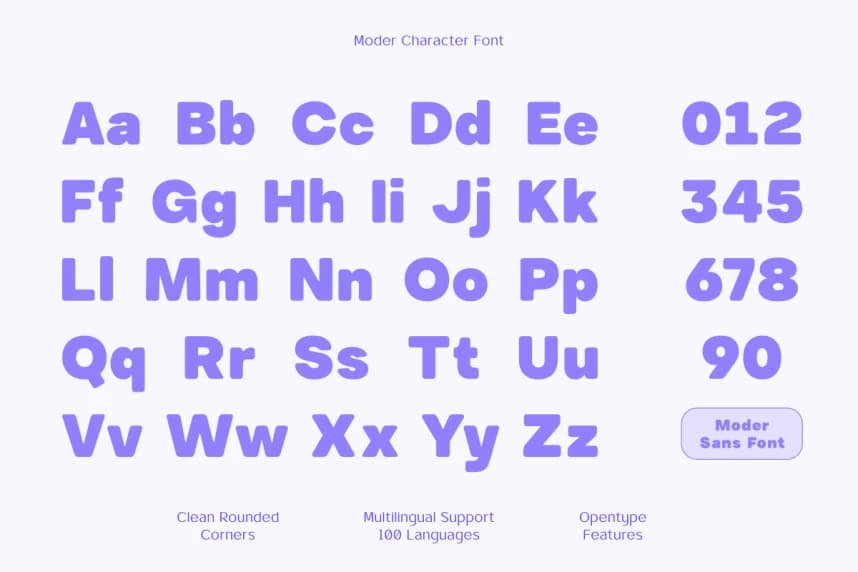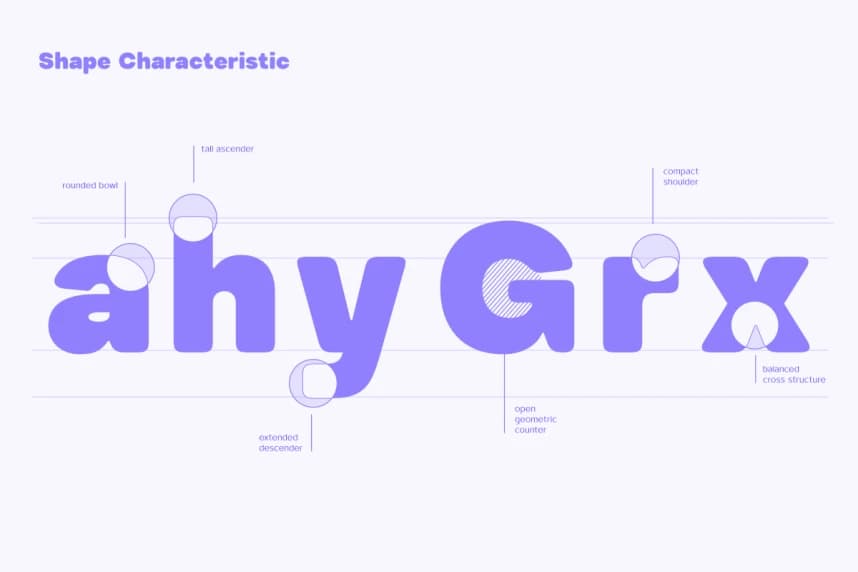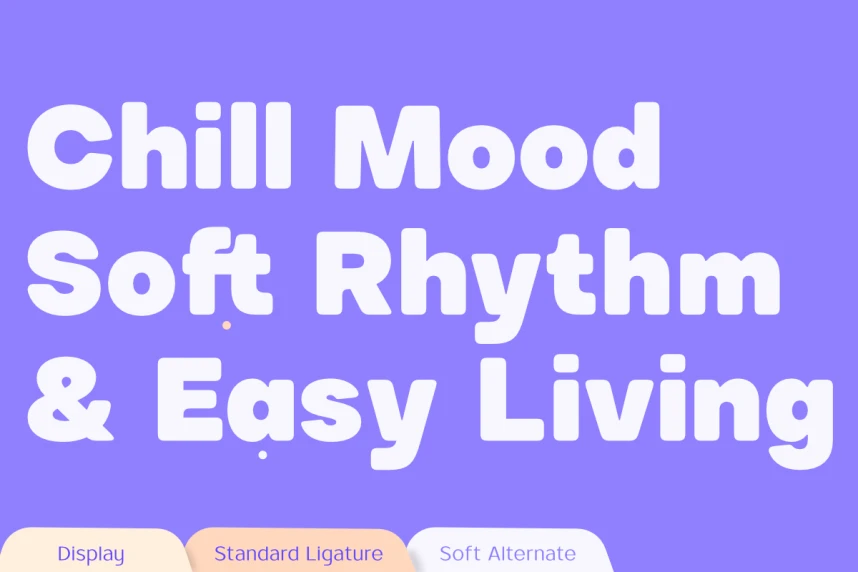
Moder Font
MODER FONT – Contemporary Rounded Display Typeface is a contemporary rounded display typeface designed to deliver a bold and modern visual identity. Created with smooth curves and clean rounded corners